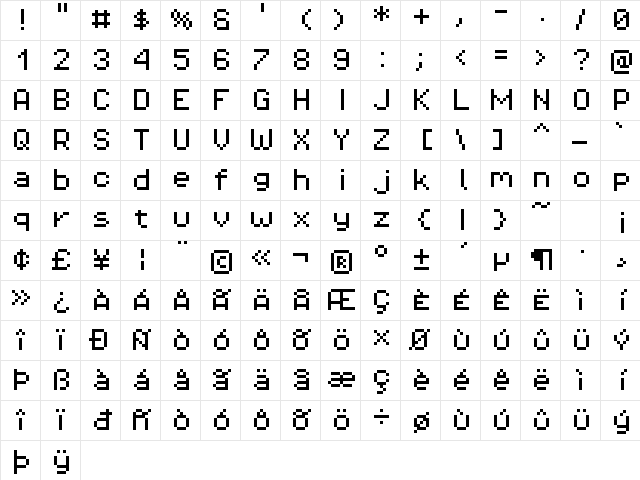
Pixel Operator 8 Regular
Designer: Jayvee Enaguas (HarvettFox96)
Complete Pixel Operator 8 Regular glyph index. Displaying only characters natively supported by Pixel Operator 8 Regular font.
Design Context for Pixel Operator 8
Pixel Operator 8 is rooted in pixel-grid construction, making it a natural fit for game UI, retro computing aesthetics, and digital nostalgia projects.